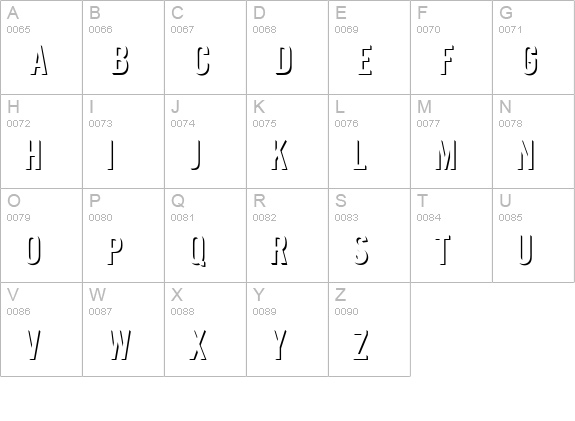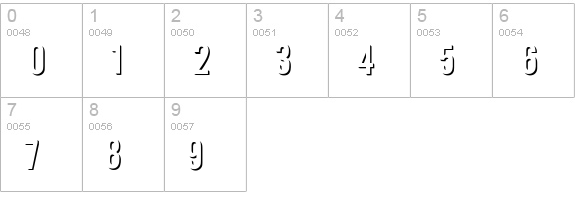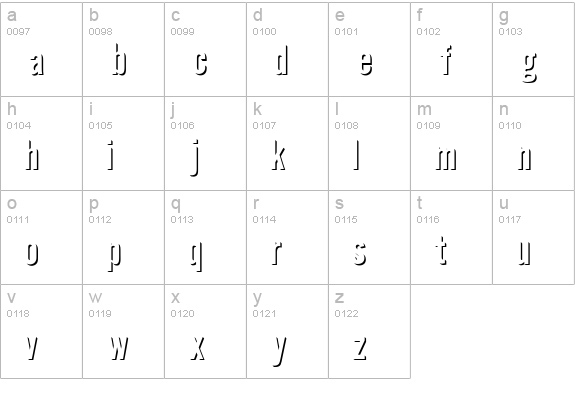
Introducing Eclipse Font, a stunning typeface that combines elegance and modernity in perfect harmony. Designed with meticulous attention to detail, this font will effortlessly elevate any design project, from sleek logos to captivating headlines. Eclipse Font boasts a unique and sophisticated style that is sure to capture the attention of your audience. Its clean lines and balanced proportions create a sense of refined beauty, making it the perfect choice for luxury brands, fashion magazines, and high-end websites. What sets Eclipse Font apart is not only its exceptional aesthetics but also its accessibility. This remarkable font is free and readily available for download at FontsMarket.com. Whether you're a professional designer or a creative enthusiast, this font's availability allows you to effortlessly add a touch of elegance to your work without breaking the bank. With a wide range of weights and styles, Eclipse Font offers versatility and flexibility, ensuring that it can adapt to any design concept. From bold and impactful headings to delicate and graceful body text, this font can effortlessly convey your message with clarity and sophistication. The legibility of Eclipse Font is unparalleled, making it ideal for both print and digital mediums. Its crisp and sharp edges ensure that every letter is easily distinguishable, even at smaller sizes or lower resolutions. This font guarantees a flawless reading experience, ensuring that your content is effortlessly communicated to your audience. Don't miss out on the opportunity to enhance your designs with Eclipse Font. Its timeless elegance, combined with its accessibility, makes it a must-have font for any designer's collection. Download Eclipse Font for free at FontsMarket.com and unlock a world of possibilities for your next creative endeavor.